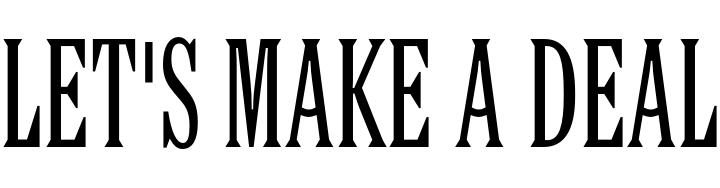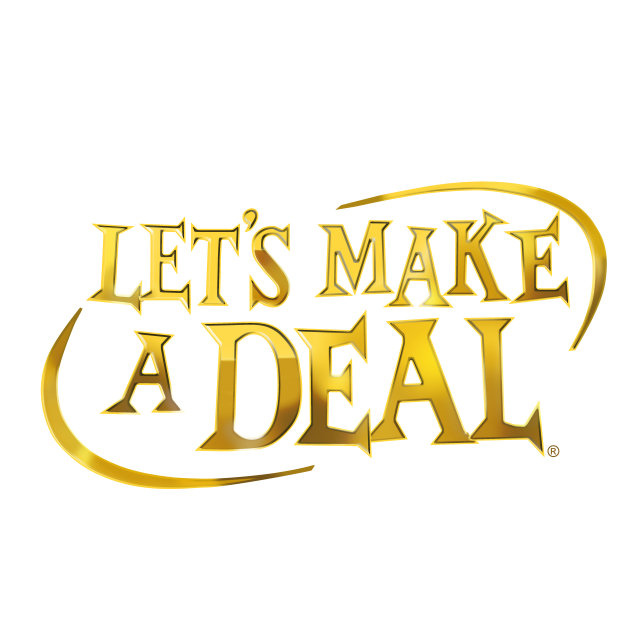
Let's Make a Deal Font
Fonts in UseLet’s Make a Deal is a television game show that first aired in 1963 and is currently airing on CBS. The show involves contestants making deals with the host to potentially win cash and prizes.
TV show logo font resembles CastleType's Latin CT Condensed typeface. It's a decorative font family with six widths and full European and Cyrillic alphabet support.